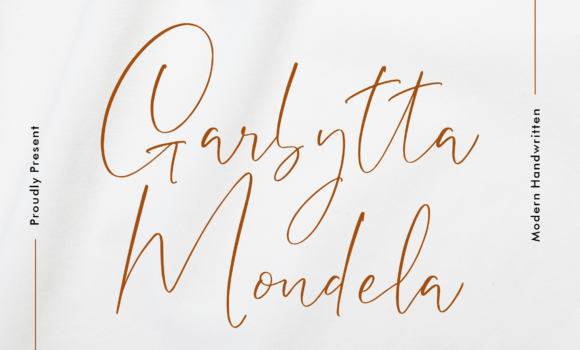
Garbytta Mondela Font – Free Download Introduction to Garbytta Mondela Font Garbytta Mondela – Modern Handwritten, from Letterfabric Studio, suitable for any projects such as: logos, branding projects, homeware designs, product packaging, mugs, quotes, posters, shopping bags, t-shirts, book covers,